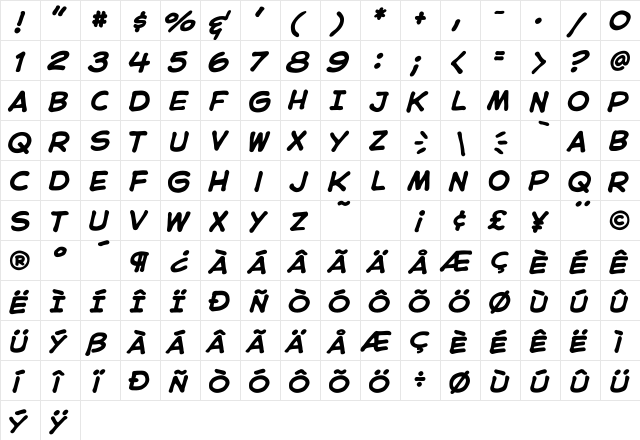
CCAstroCityInt BoldItalic
Design Context for CCAstroCityInt Typeface
CCAstroCityInt takes a measured approach to typography — its balanced proportions and neutral character make it a reliable workhorse for both digital and print work. The dynamic lean of this cut emphasises speed and emphasis in any layout. The heavy weight commands attention and anchors typographic hierarchies.